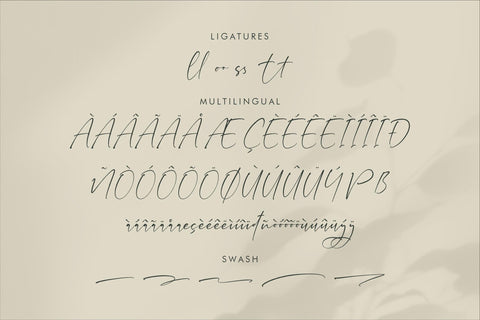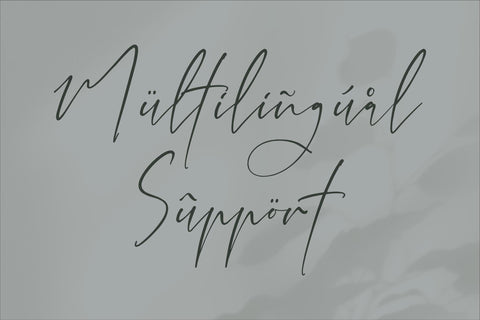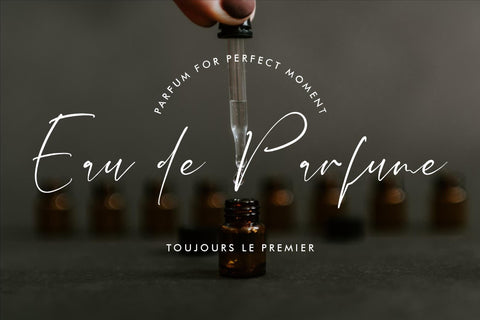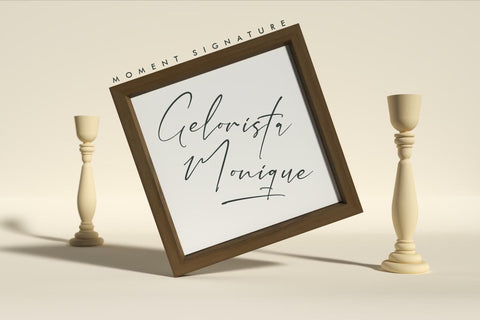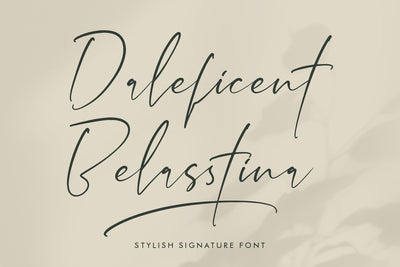
Daleficent Belasstina - Stylish Signature Font
Proudly present Daleficent Belasstina - Stylish Signature Font , created by Storytype,
A luxury script that has own unique style & modern look.